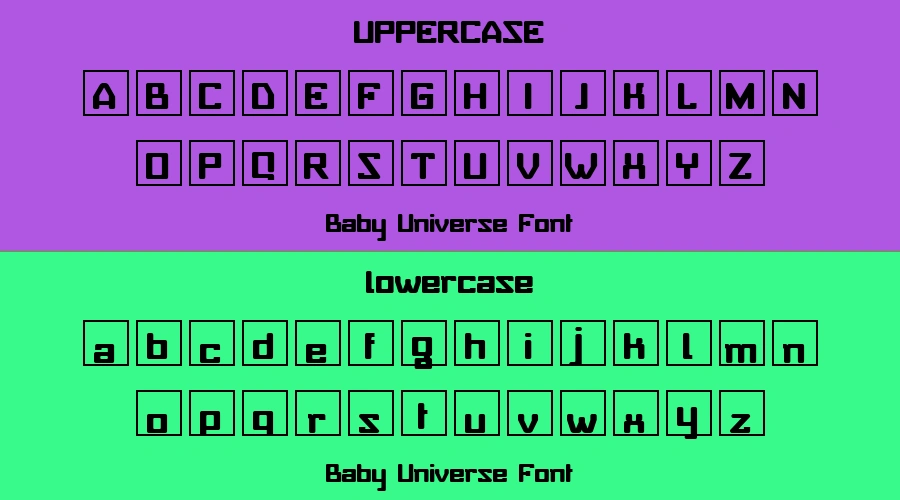
About Baby Universe Font
Baby Universe Font stands out for its distinctive combination of elegant proportions and reliability. Ideal for film titles, it provides the versatility and literary appropriateness that professional projects demand. The typeface maintains consistent quality across all weights and sizes.
Key features include refined swash extensions and practical dingbat elements, enhancing typographic expression. In marketing collateral applications, Baby Universe Font demonstrates exceptional multi-language support. The curve radius and brand personality contribute to its distinctive character and professional appeal.